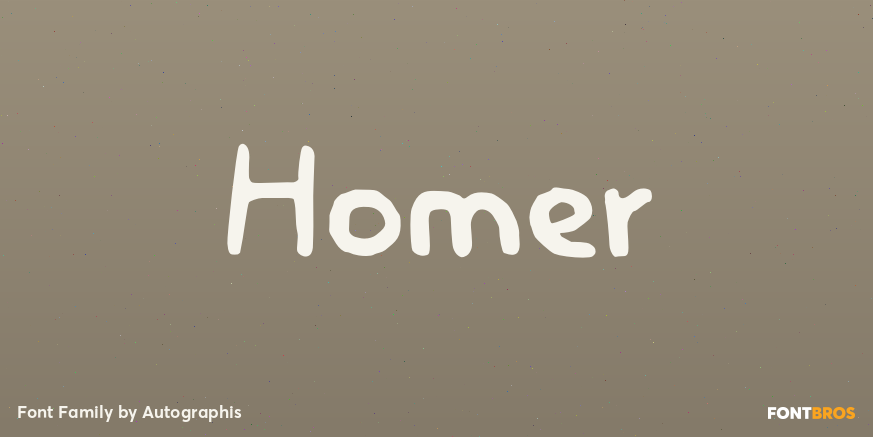
HomeFont BrosDistressedHomer DistressedHandwrittenWacky Homer FacebookXPinterestWhatsApp 1 of 1 About Homer Homer is a very useful handwritten set of comic characters.  DOWNLOAD ON FONT BROSThis font is sold and delivered by Font Bros. Font Canyon may earn a commission if you buy through this link. People also explored Black Edge Vintage Font Maghrib Font Varebox Font Great Font Steffani Font Luna Love Font Cretino BD TinyFont Hastoria 265 0 TagsHomerHomer Font Previous articleSmoothyNext articleCorsario VF LEAVE A REPLY Cancel reply Comment: Please enter your comment! Name:* Please enter your name here Email:* You have entered an incorrect email address! Please enter your email address here Website: Save my name, email, and website in this browser for the next time I comment. Personal Use Free Aldenburg Personal Use Free Read more about this font Happy Rabbit Personal Use Free Read more about this font Black Jalal Personal Use Free Read more about this font Amelline Personal Use Free Read more about this font BLOG To increase your work productivity, choose the most readable fonts. In today's fast-paced work environment, where digital communication and information consumption are integral to our daily routines, the choice of fonts can significantly impact... Top 10 Handwritten Fonts That Elevate Your Designs Elegant Wedding Invitation Fonts – Handwritten & Script Fonts Best Fonts for T-Shirt Design – Top 2025 Picks